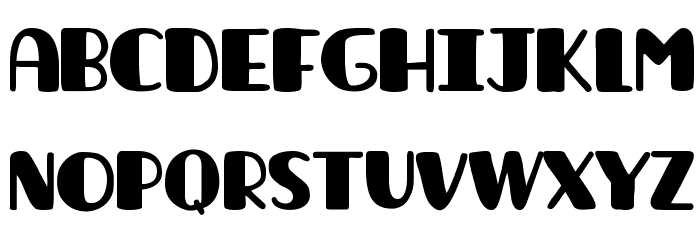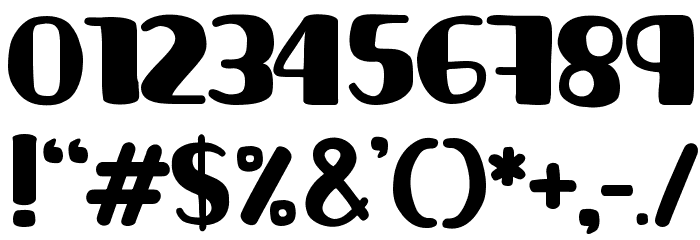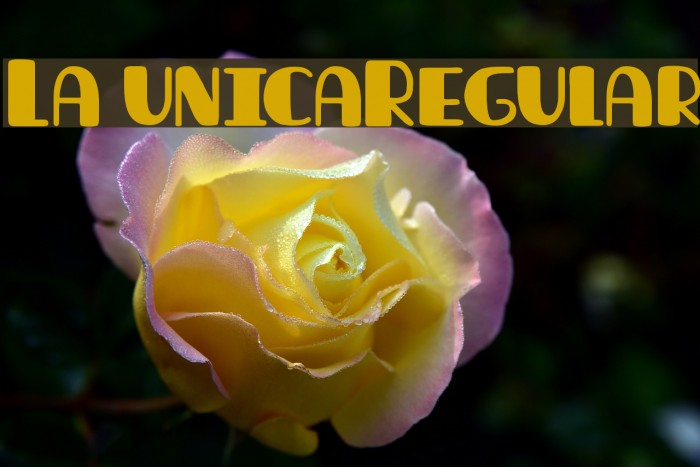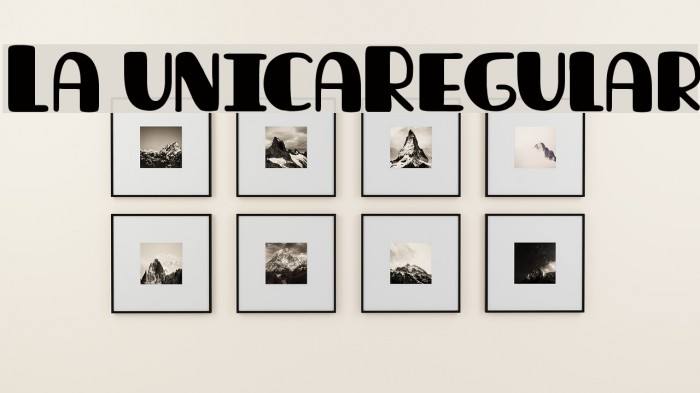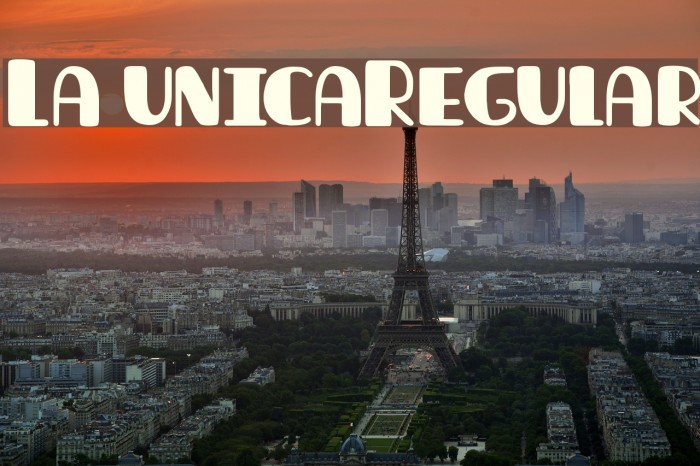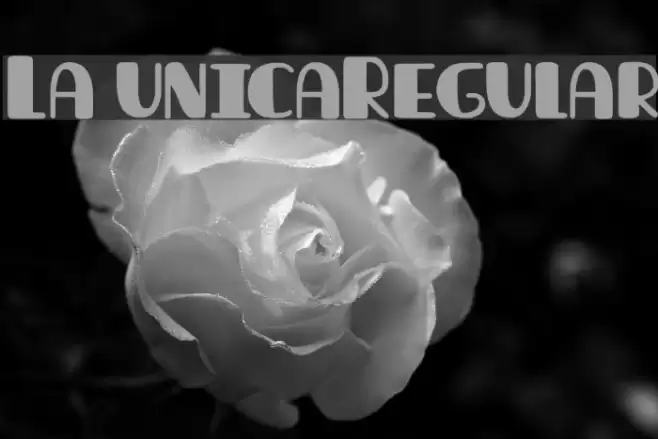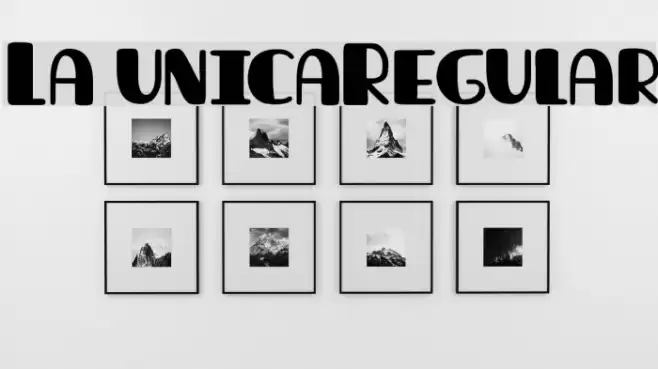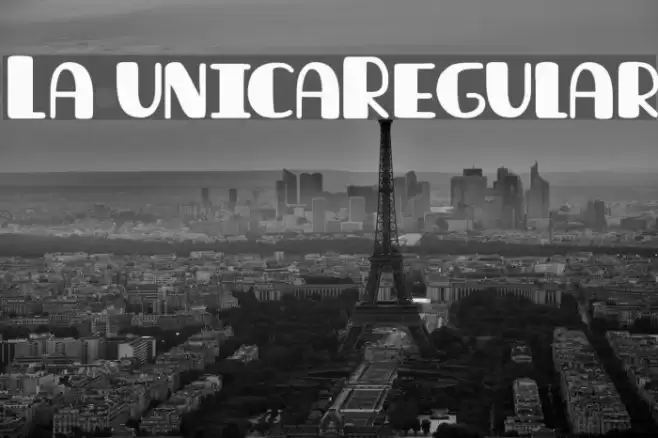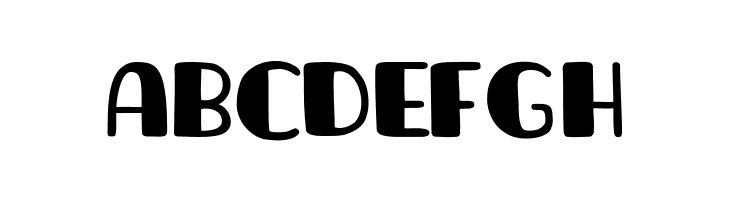
La unicaRegular Font
This font features a bold and playful design with rounded edges and a unique, slightly whimsical style. The characters are thick and have a consistent weight throughout, giving them a strong presence. The uppercase and lowercase letters maintain a uniform height, creating a cohesive look. The numbers and special characters follow the same design principles, ensuring a harmonious appearance across all elements. The font's rounded terminals and smooth curves contribute to its friendly and approachable aesthetic, making it suitable for a variety of creative projects.
A bold, playful font with rounded edges and a whimsical style.
- Proposed Projects: Ideal for children's books, playful branding, posters, and creative advertising.
- Overall Style: Playful, Modern